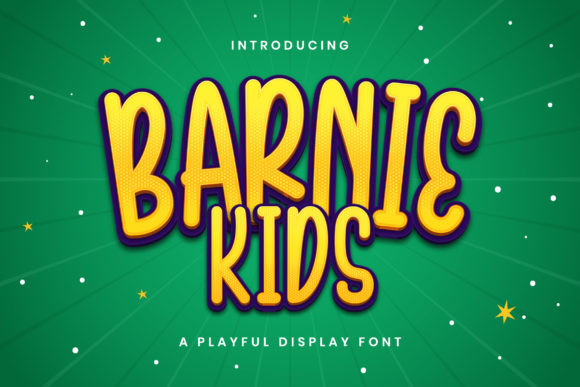
Welcome to the realm of Barnie Kids Font, a display font family that will ignite your imagination and bring a smile to your face. This playful and fresh font was meticulously crafted by StringLabs, a team of passionate designers who understand the power of words, especially when presented in a captivating manner.
Barnie Kids isn't just a collection of letters; it's an invitation to embark on a whimsical journey, where your creations come to life with a touch of magic. Picture this: your child's school project transformed into an enchanting tale, with characters leaping off the page, thanks to the vibrant energy embedded within each letterform.
This font family is more than just a visual treat; it's a tool that empowers you to connect with your audience on a deeper level. Its playful nature makes it perfect for children's books, posters, and educational materials, while its versatility extends its reach to branding, packaging, and social media designs.
With every stroke of Barnie Kids Font, you'll weave a tapestry of memories that will last a lifetime. Imagine the joy on your child's face as they discover the wonders of reading, their eyes sparkling with delight as they follow the adventures of their favorite characters, brought to life by the magic of this font.